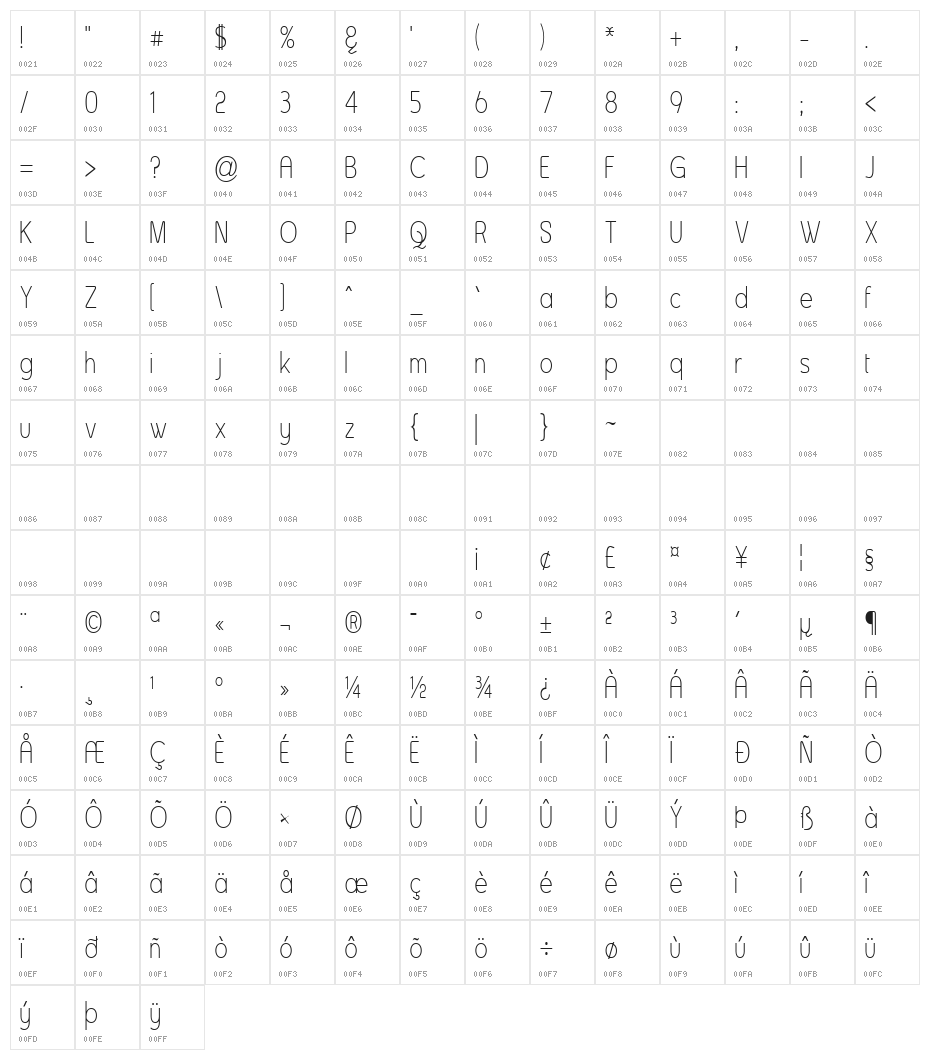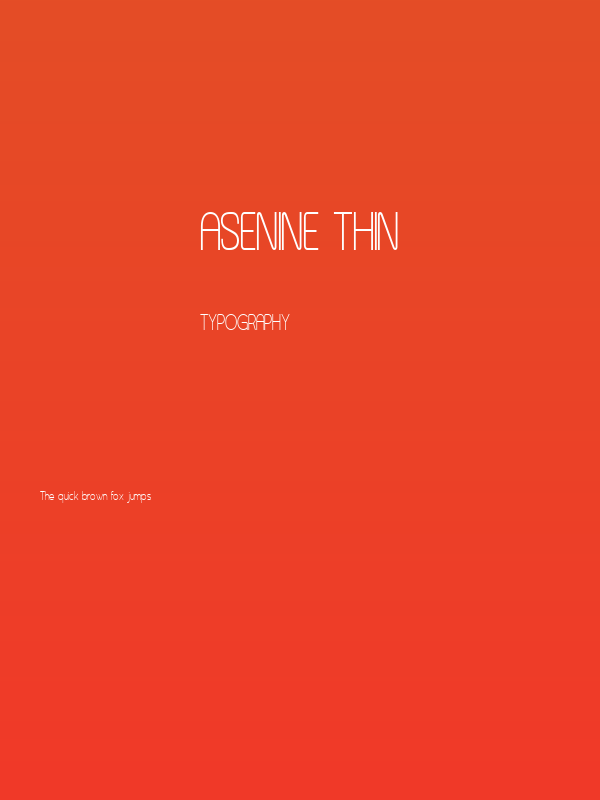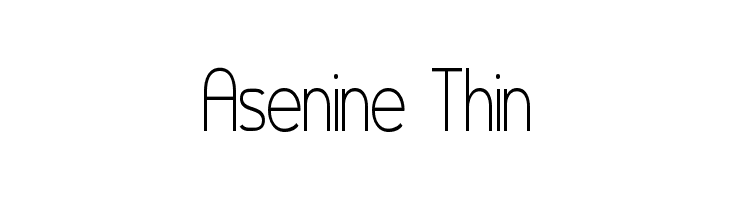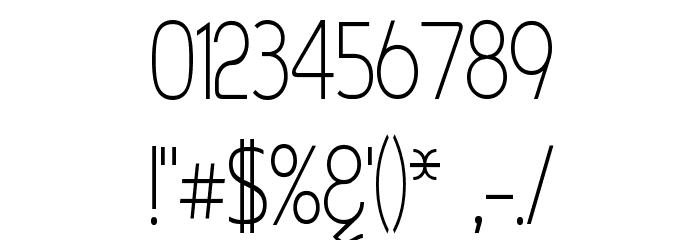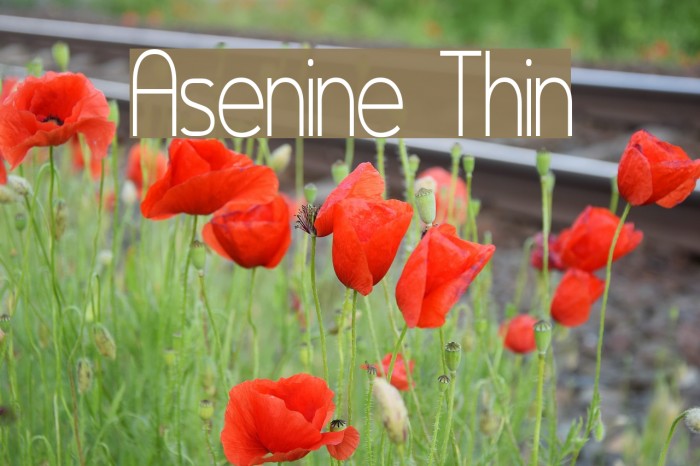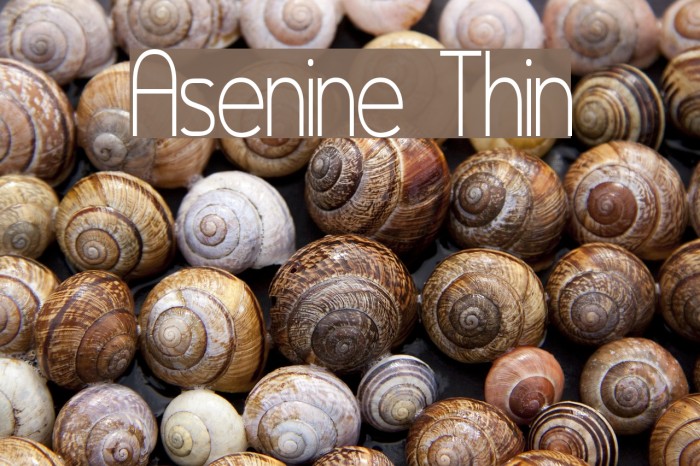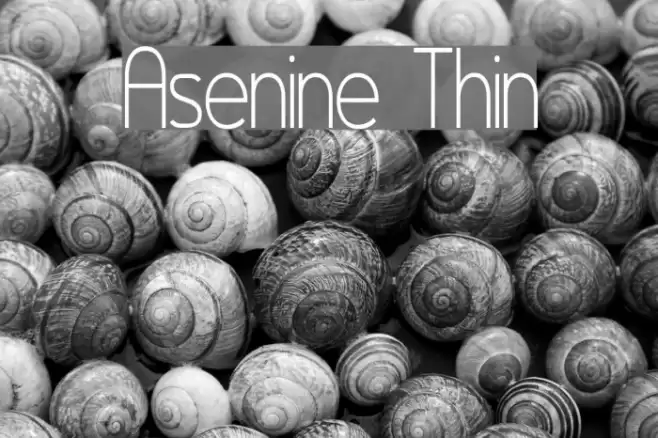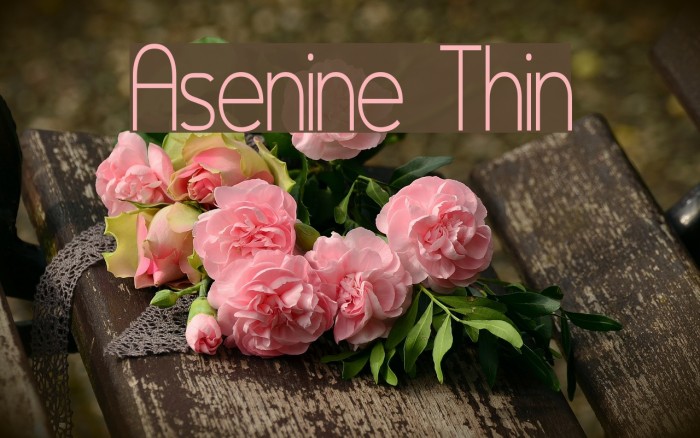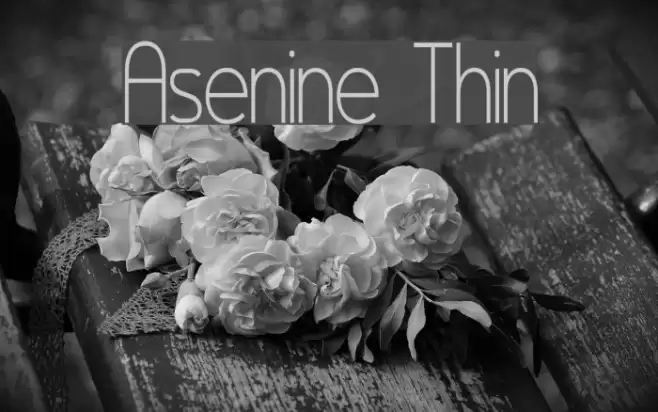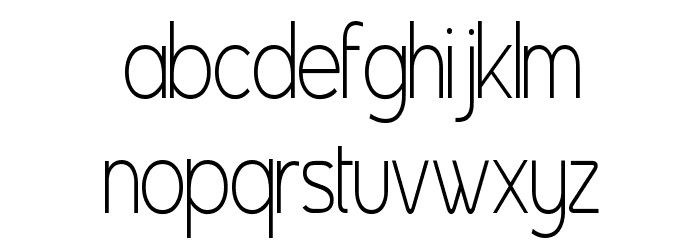
Asenine Thin Font
Asenine Thin Description
This font features a sleek and modern design with thin, elongated letterforms that convey a sense of elegance and sophistication. The characters are uniformly narrow, creating a consistent and streamlined appearance. The uppercase and lowercase letters maintain a geometric structure, with clean lines and minimal embellishments. The numerals and special characters are designed to match the overall aesthetic, ensuring a cohesive look across all text elements. This font's simplicity and clarity make it highly versatile for various design applications.
| Width | Condensed |
| Use Case | Headlines, Body text, Logos |
| Proposed Projects | Ideal for modern branding, minimalist posters, editorial layouts, and digital interfaces. |